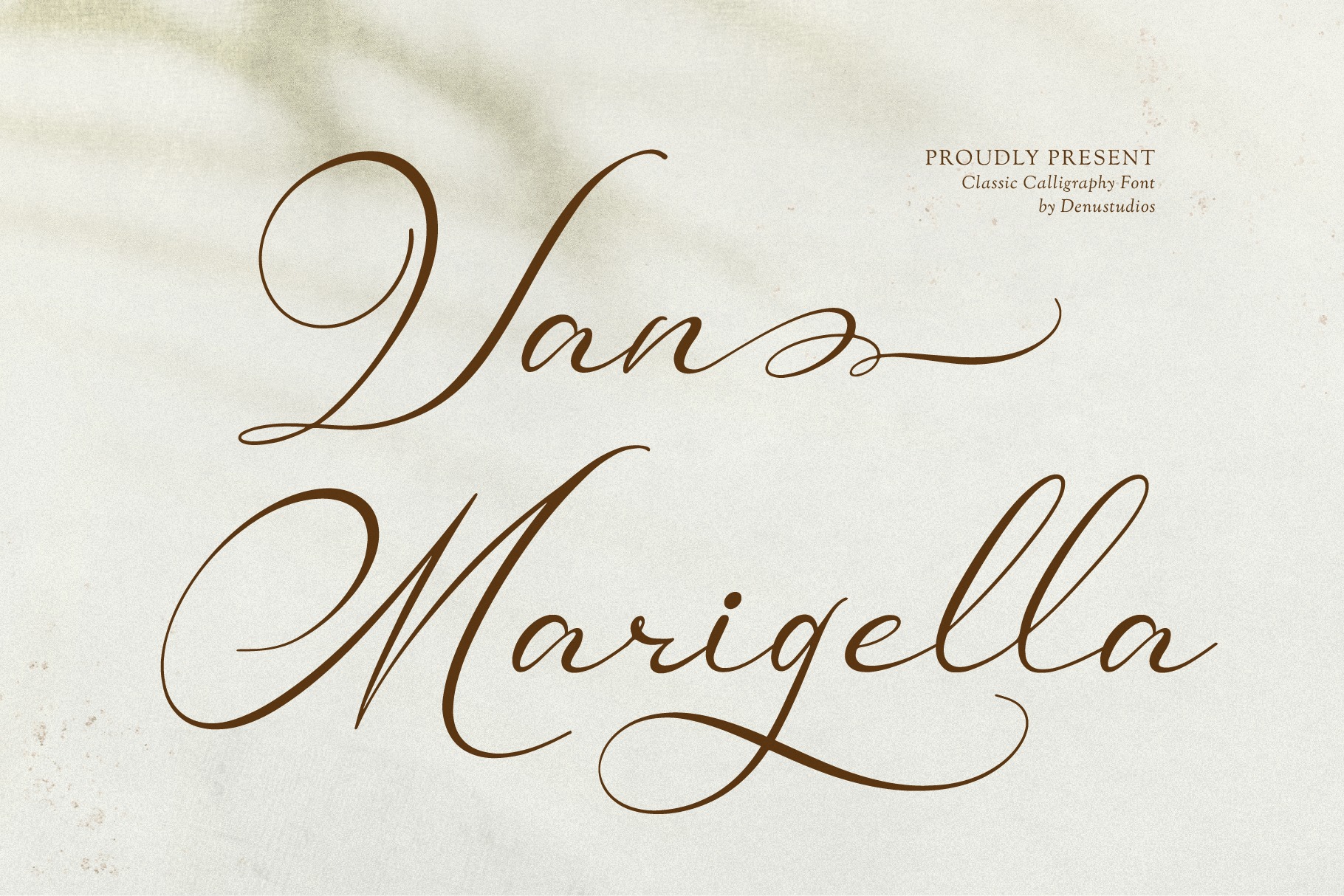
Van Marigella – Classic Calligraphy Font
Van Marigella – Classic Calligraphy Font is a premium-quality font developed to enhance your work with a polished, modern, and visually elevated look. Van Marigella | Classic Calligraphy Font, from Denustudios, suitable for any projects such as: logos, branding projects, homeware designs, product packaging, mugs, quotes, posters, shopping bags, t-shirts, book covers, name card, invitation cards, greeting cards, label, photography, watermark, special events, and all your other lovely projects that need a script taste.